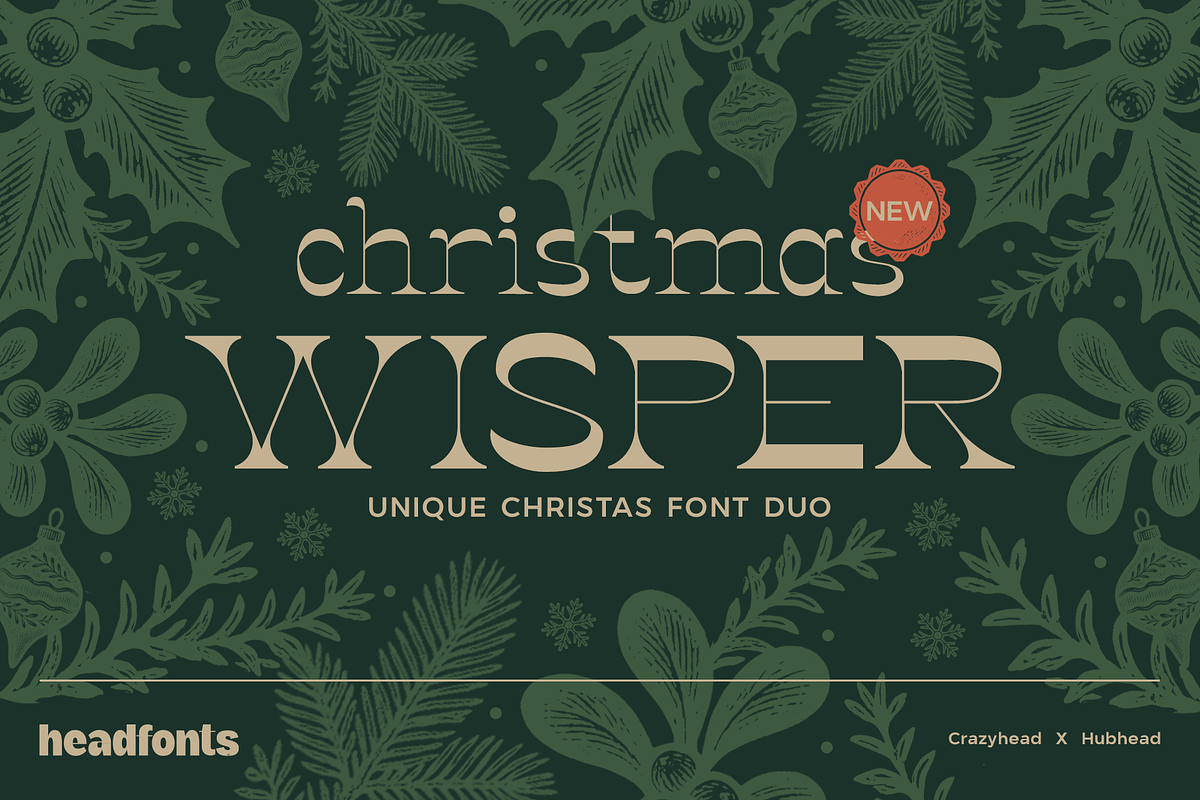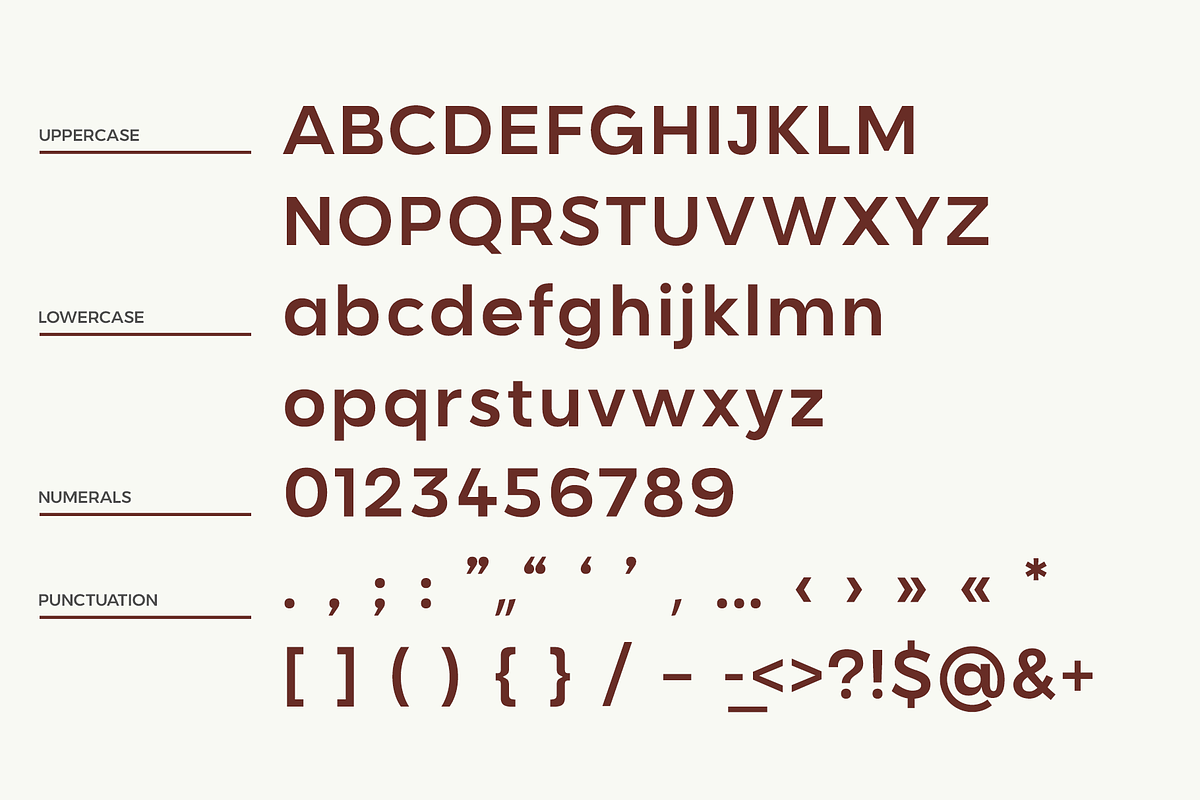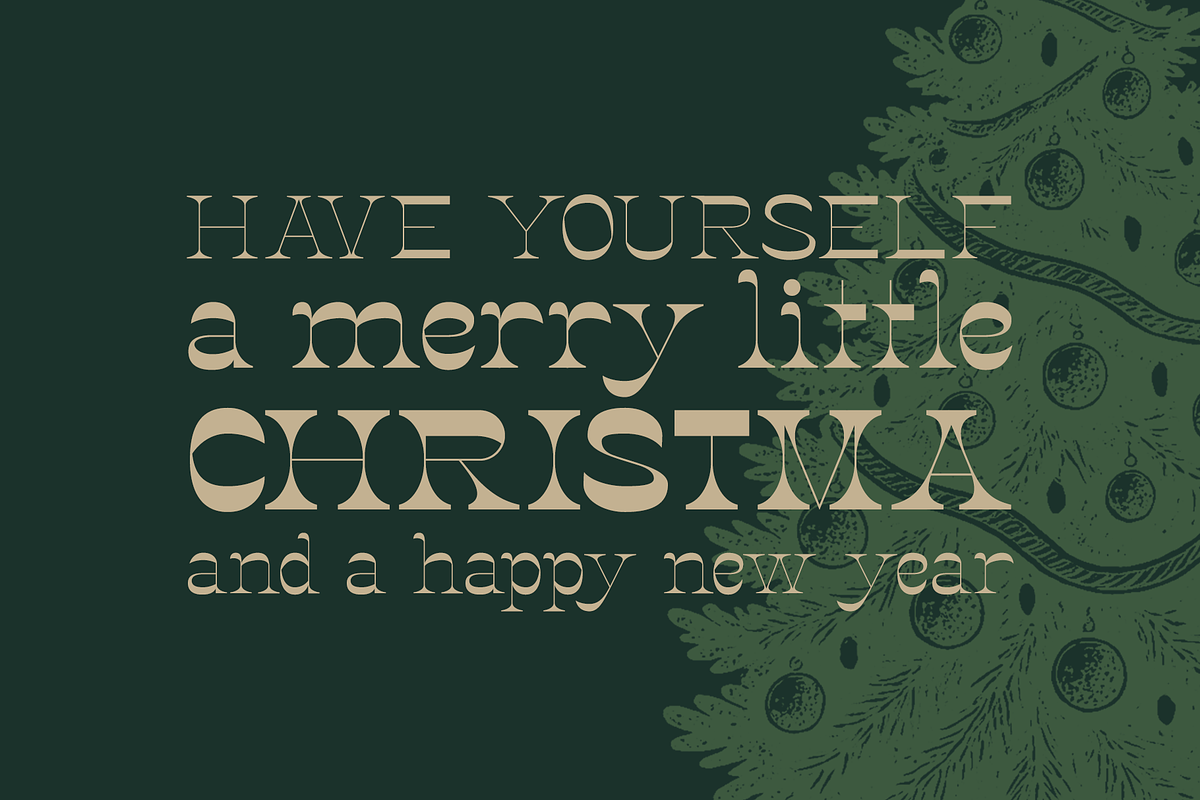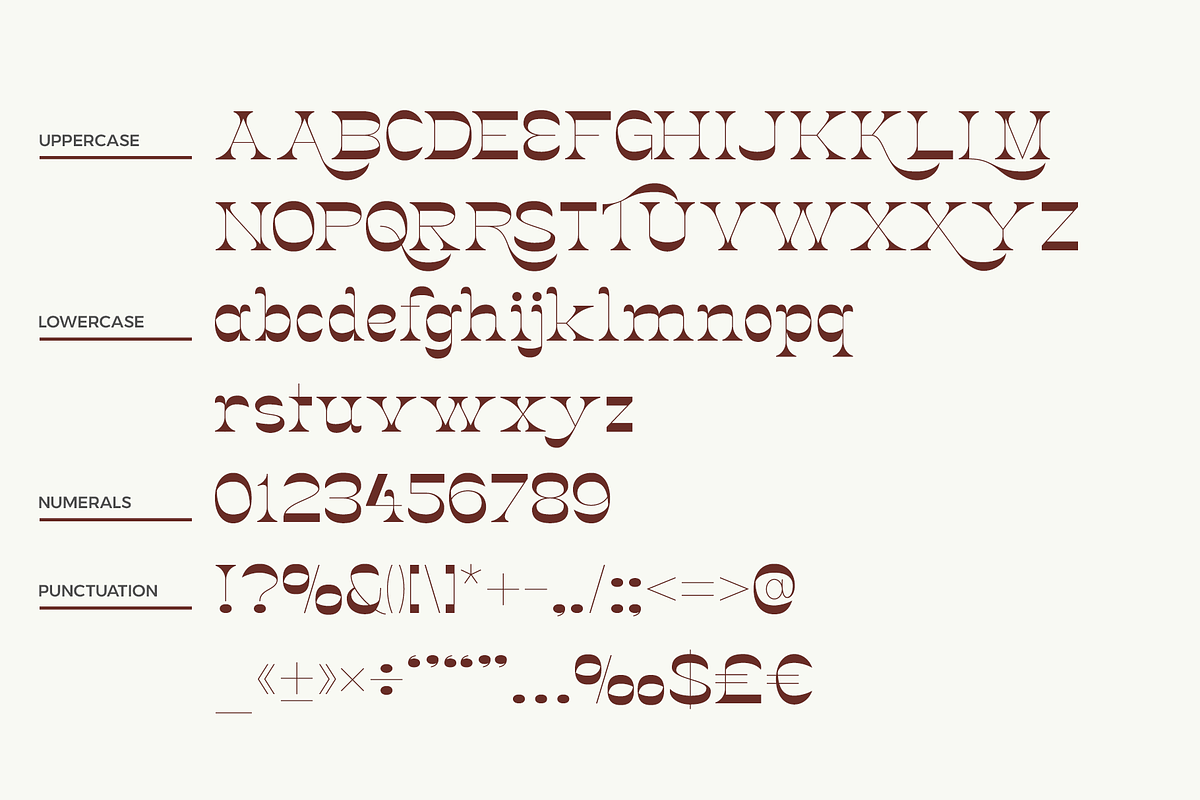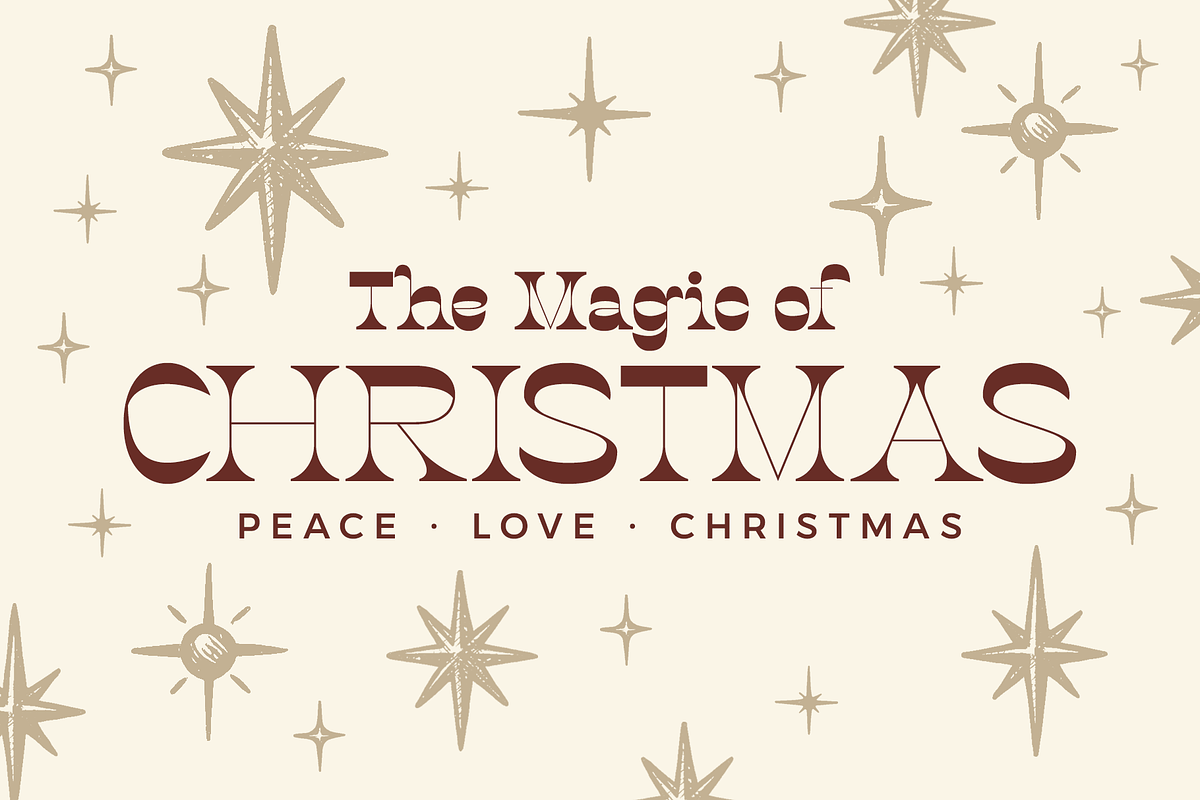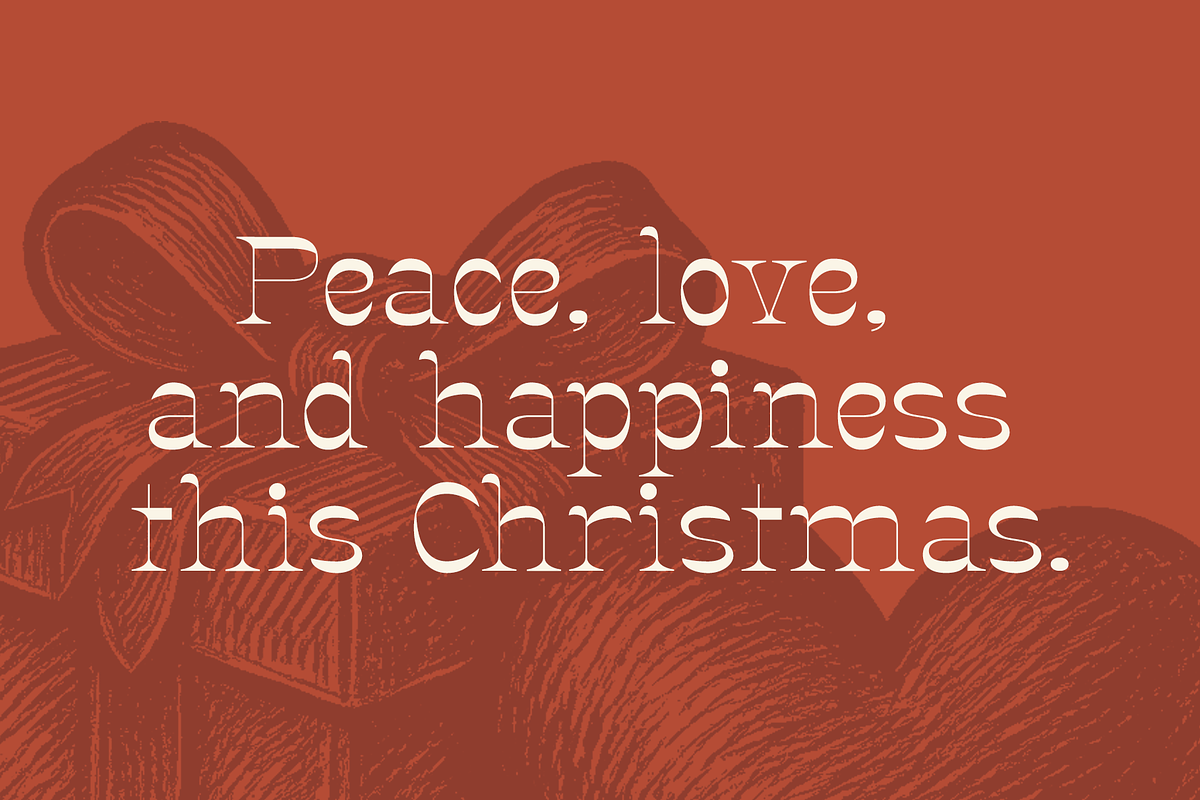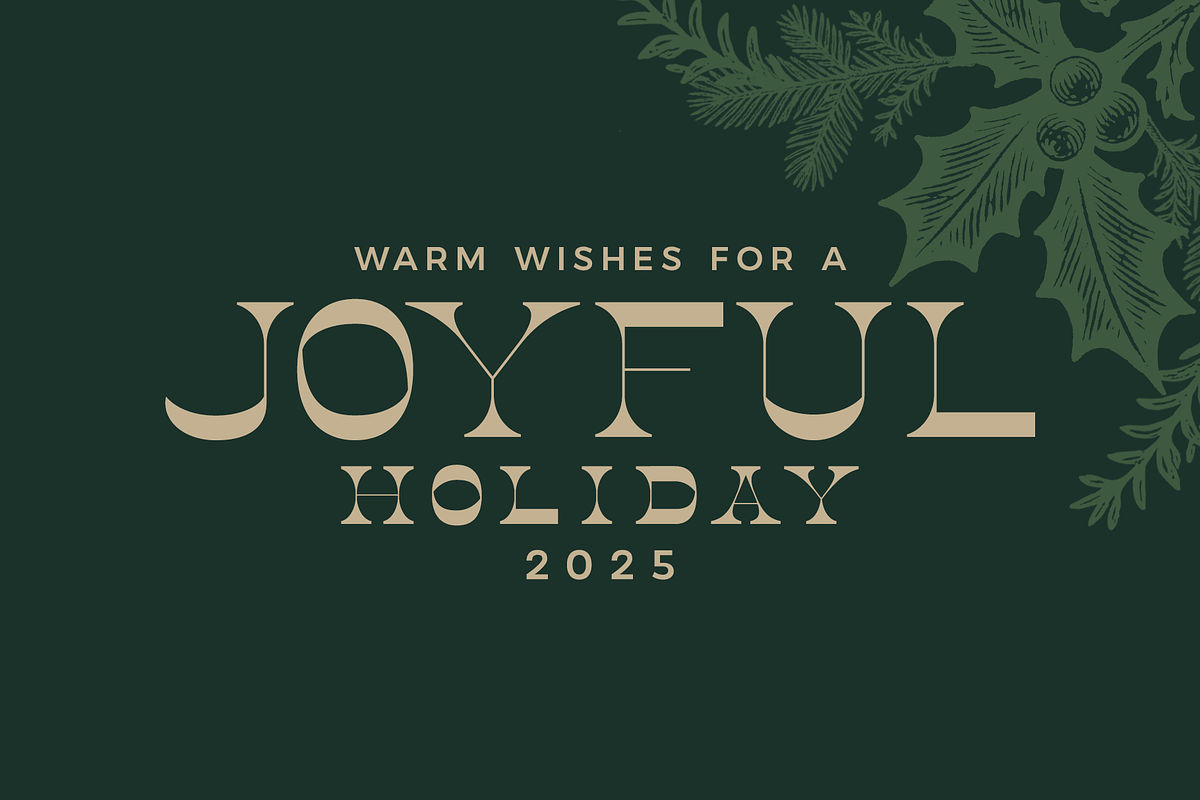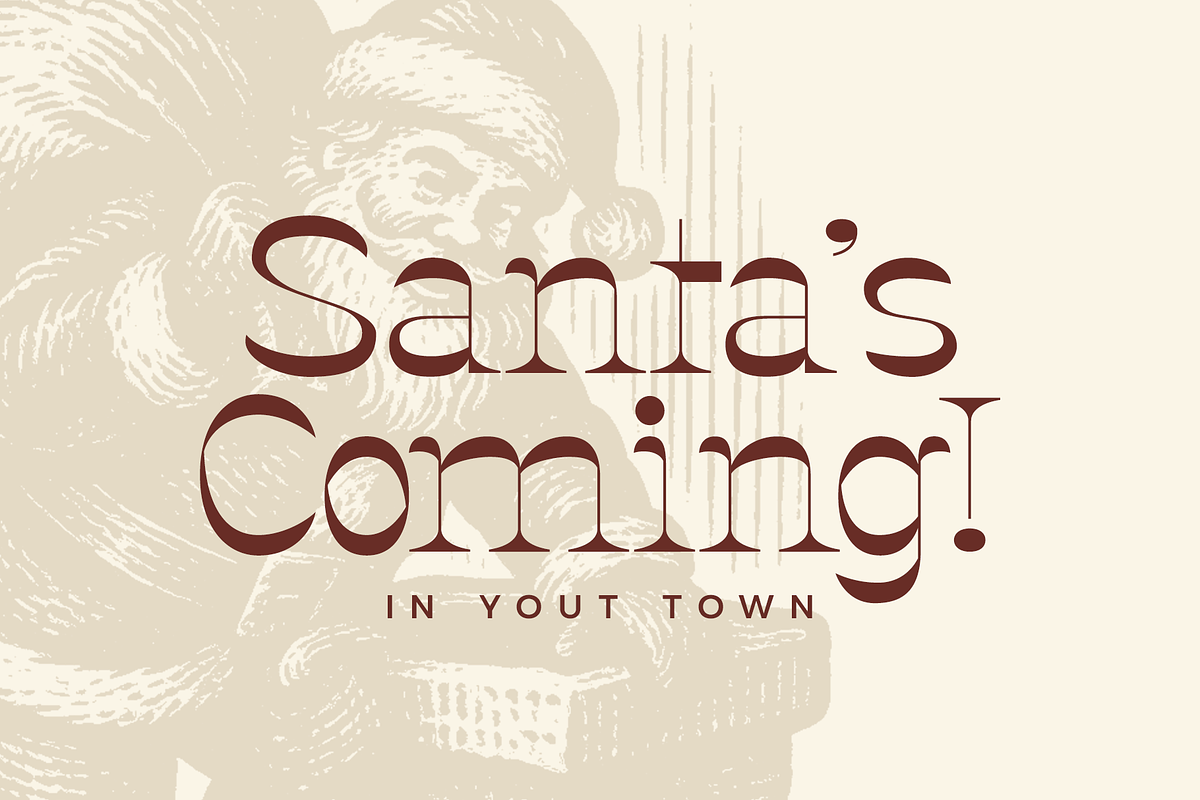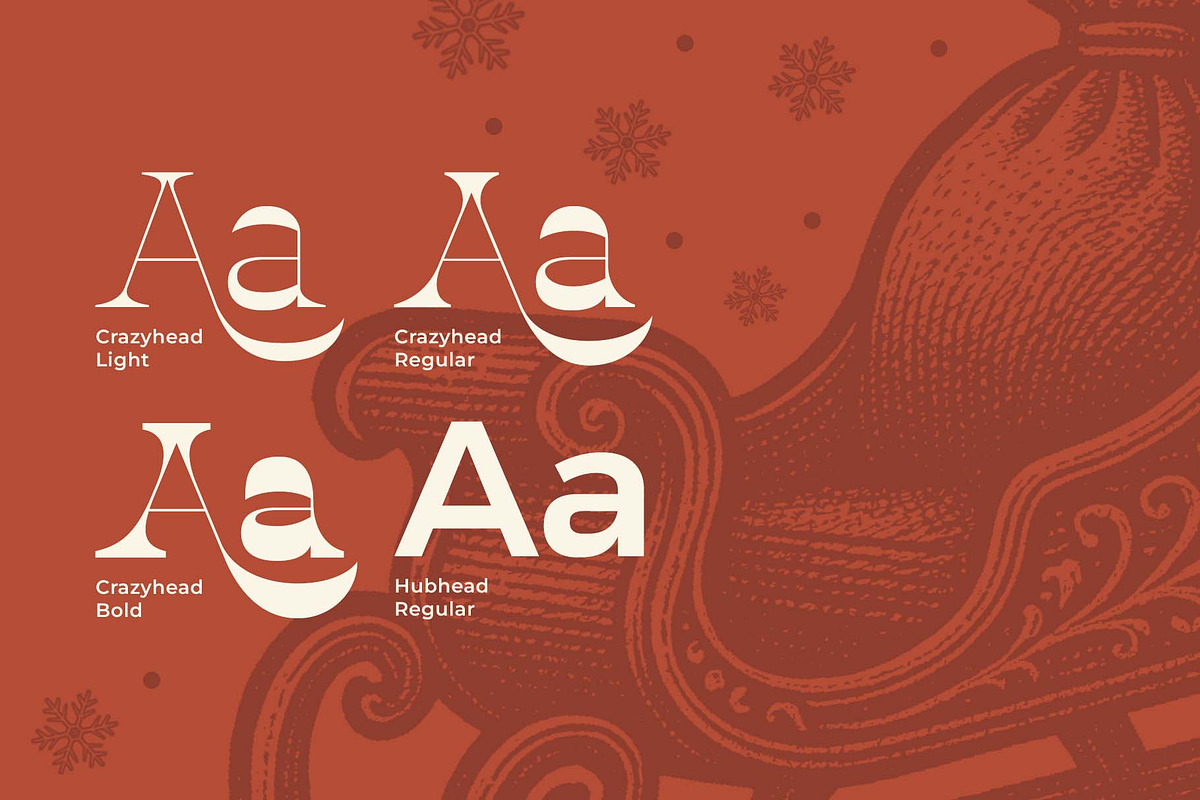
Christmas Wisper Unique Font Duo
Bring the holiday spirit to life with Christmas Wisper Unique Font Duo, a creative mix of bold display charm and modern geometric style. Perfect for Christmas cards, festive posters, cozy branding, invitations, or any project that needs a warm seasonal touch. Easy to use, versatile, and designed to make your holidays shine!